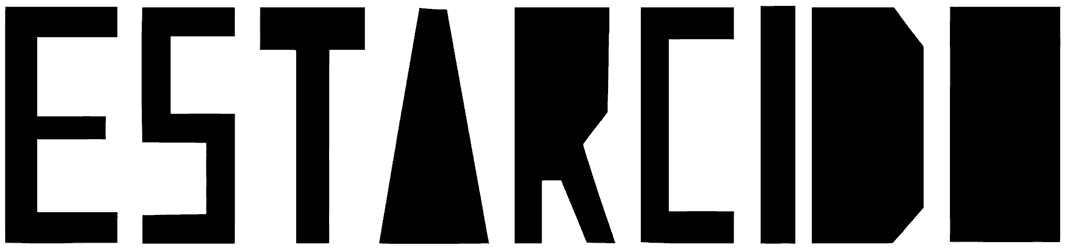
Estarcido Font
Estarcido is an all-caps techno font that will allow you to make your design look modern and futuristic. It seems bold and geometric; you can also see that some characters have a solid shape. This cut out font doesn’t include lowercase letters and punctuation. It’s perfect for your upcoming projects, such as sci-fi books, digital logos, social media posts, apparel printing, and game interfaces.